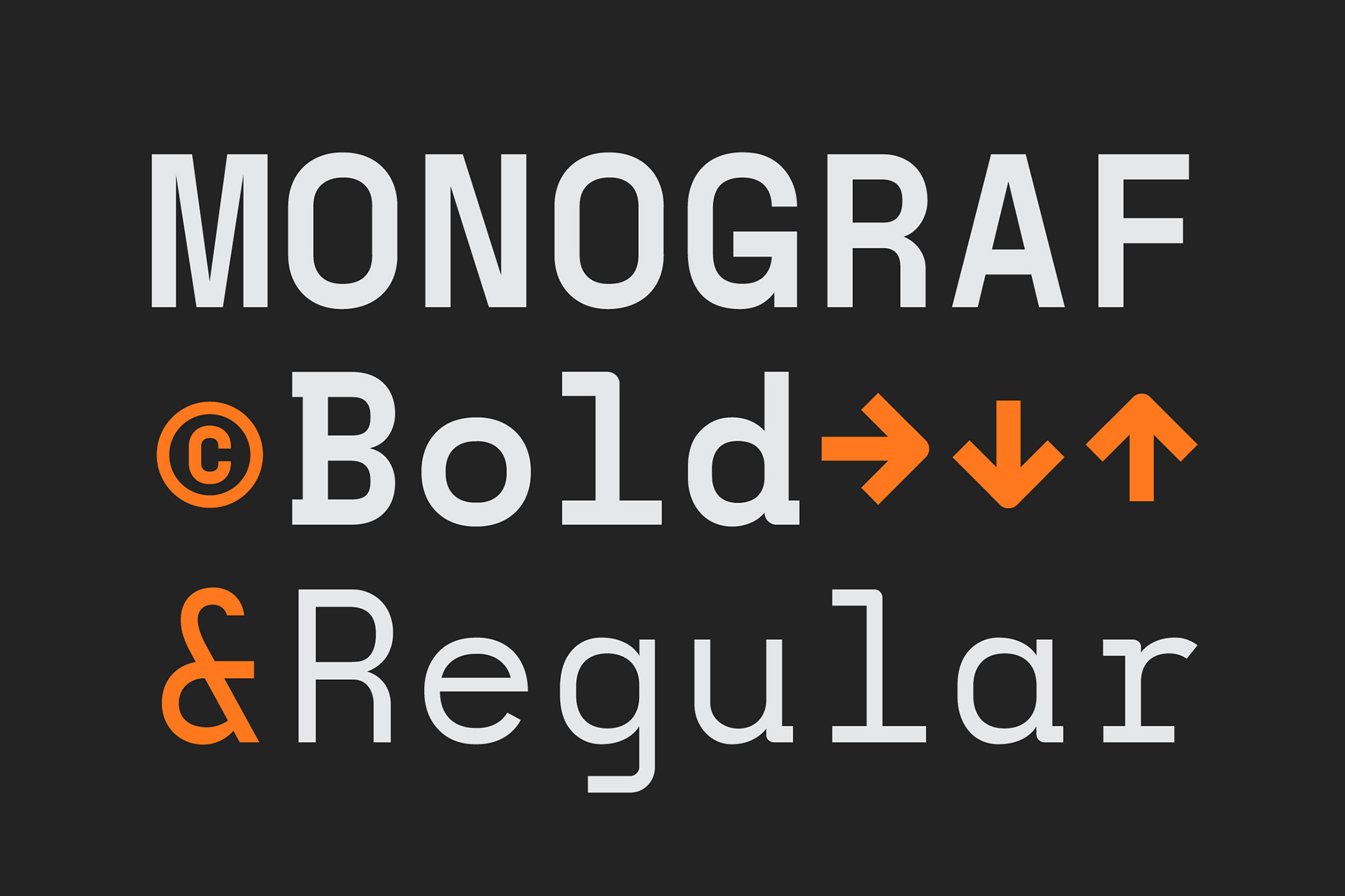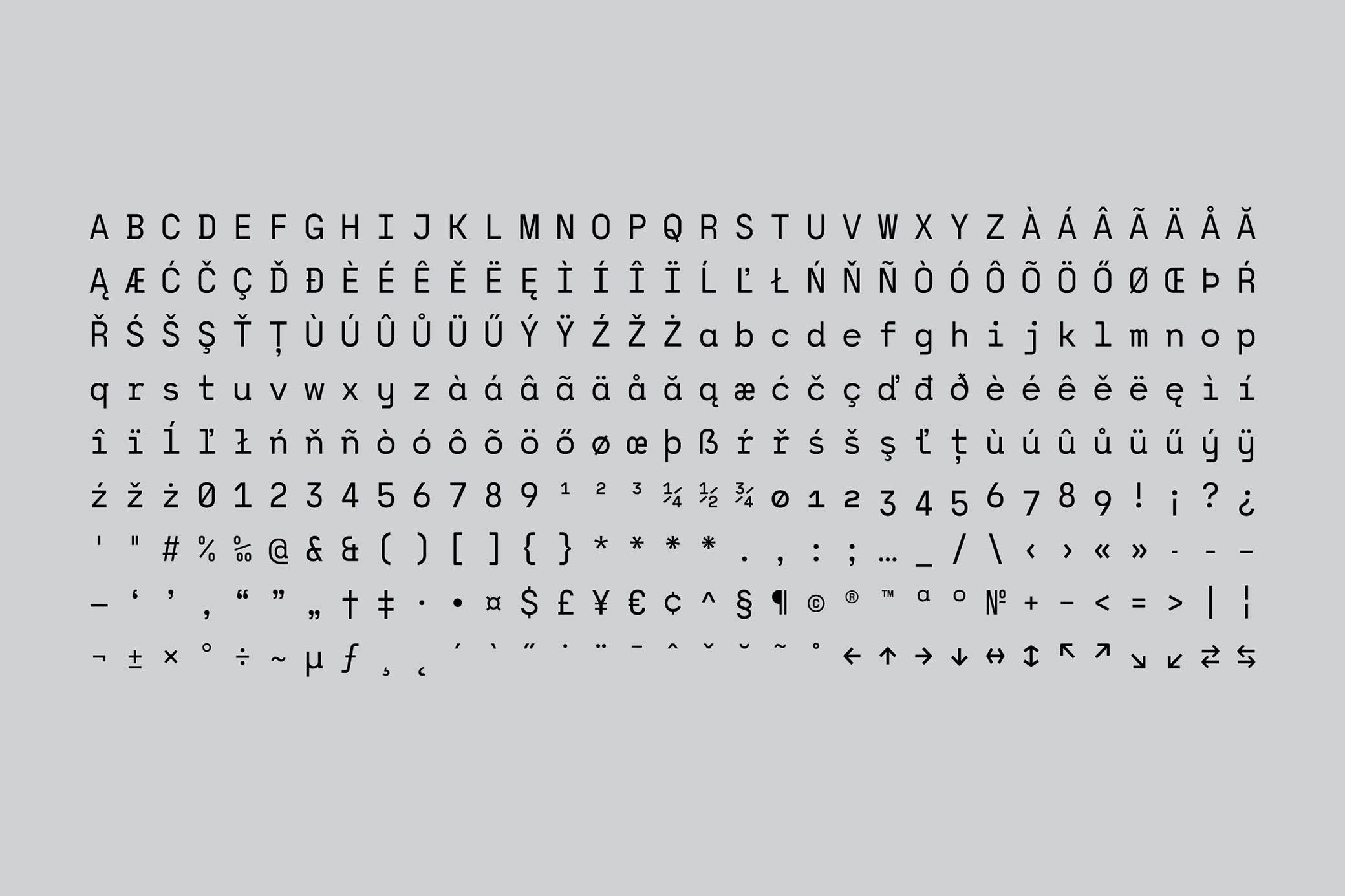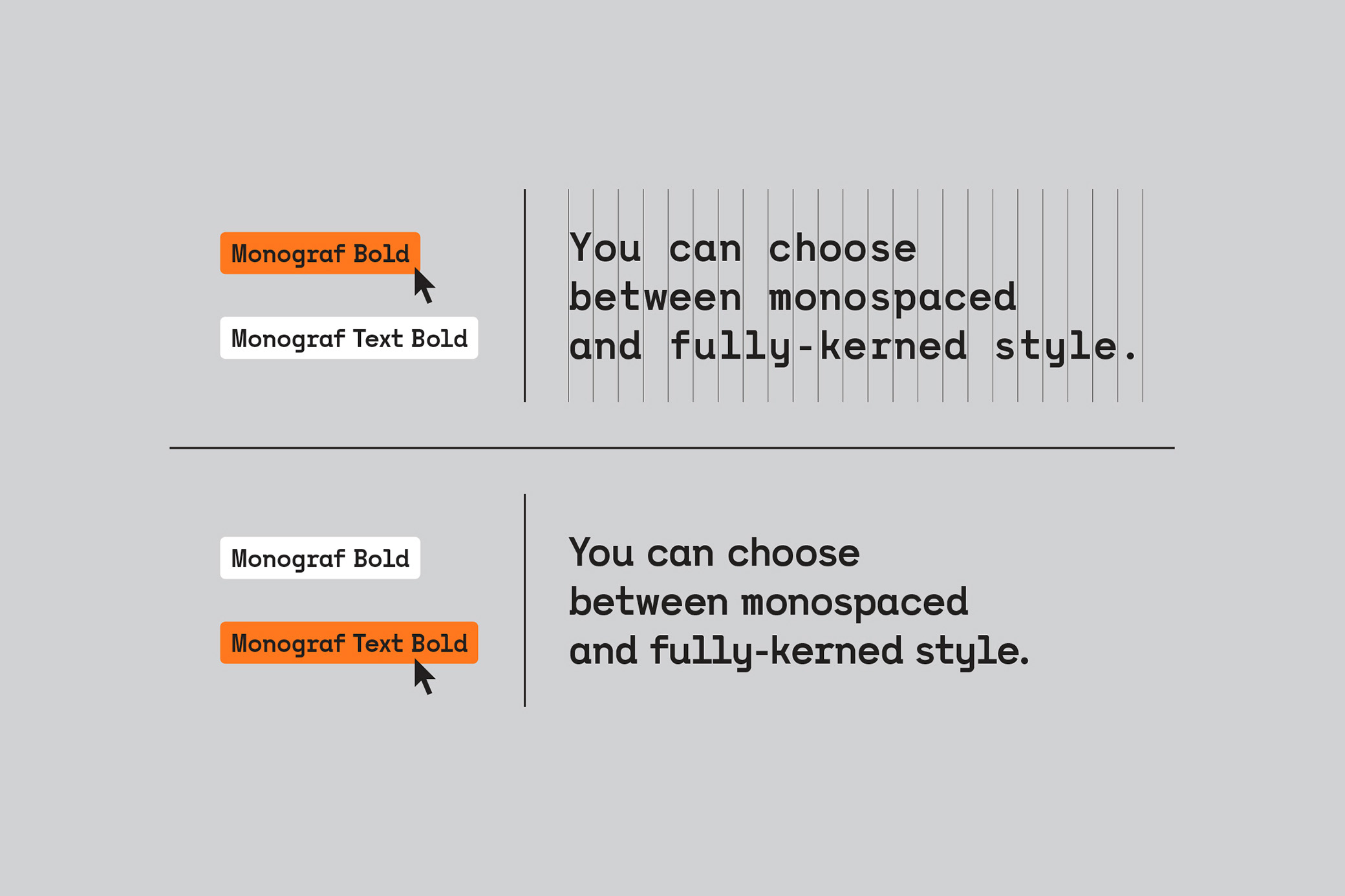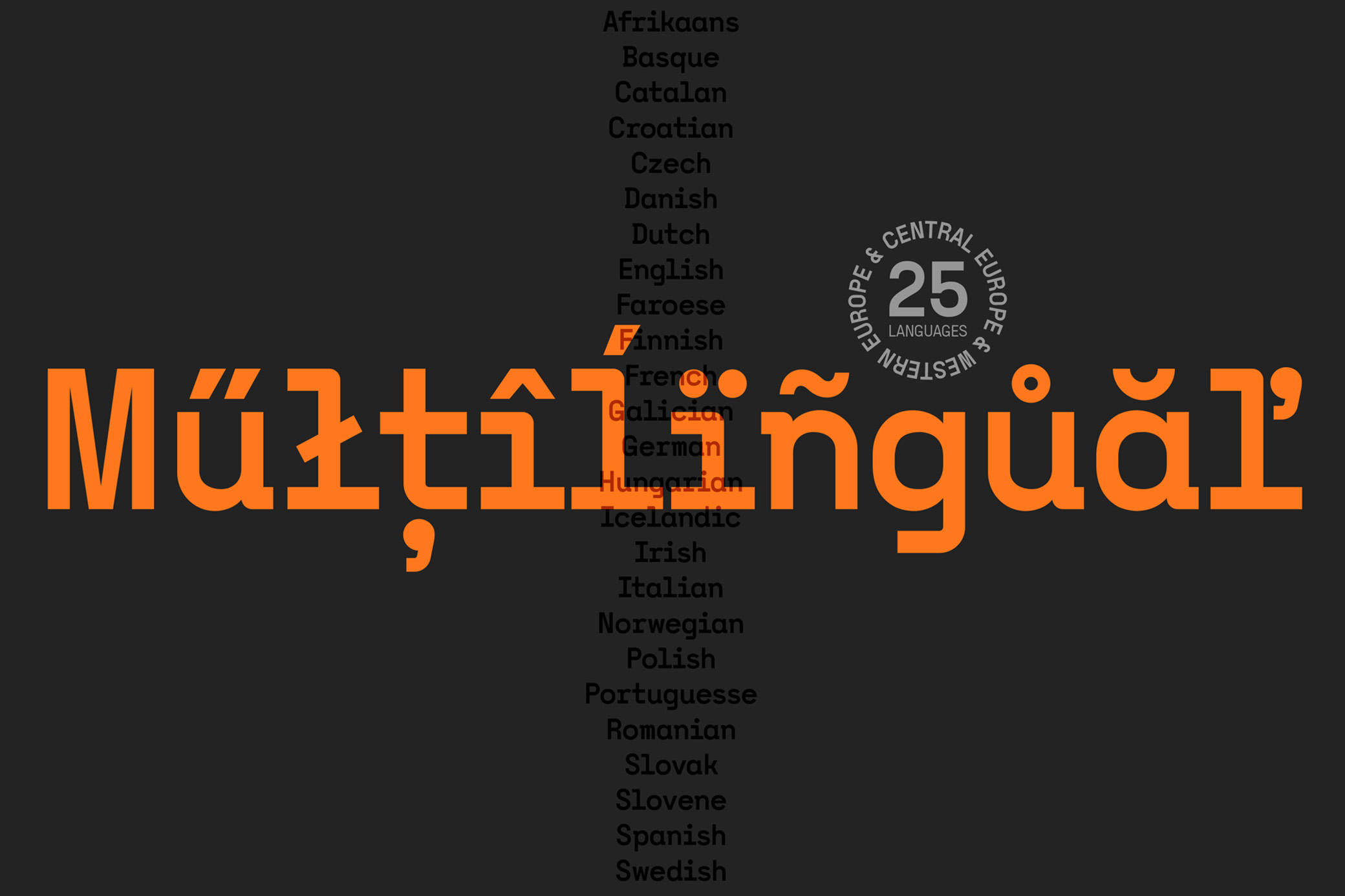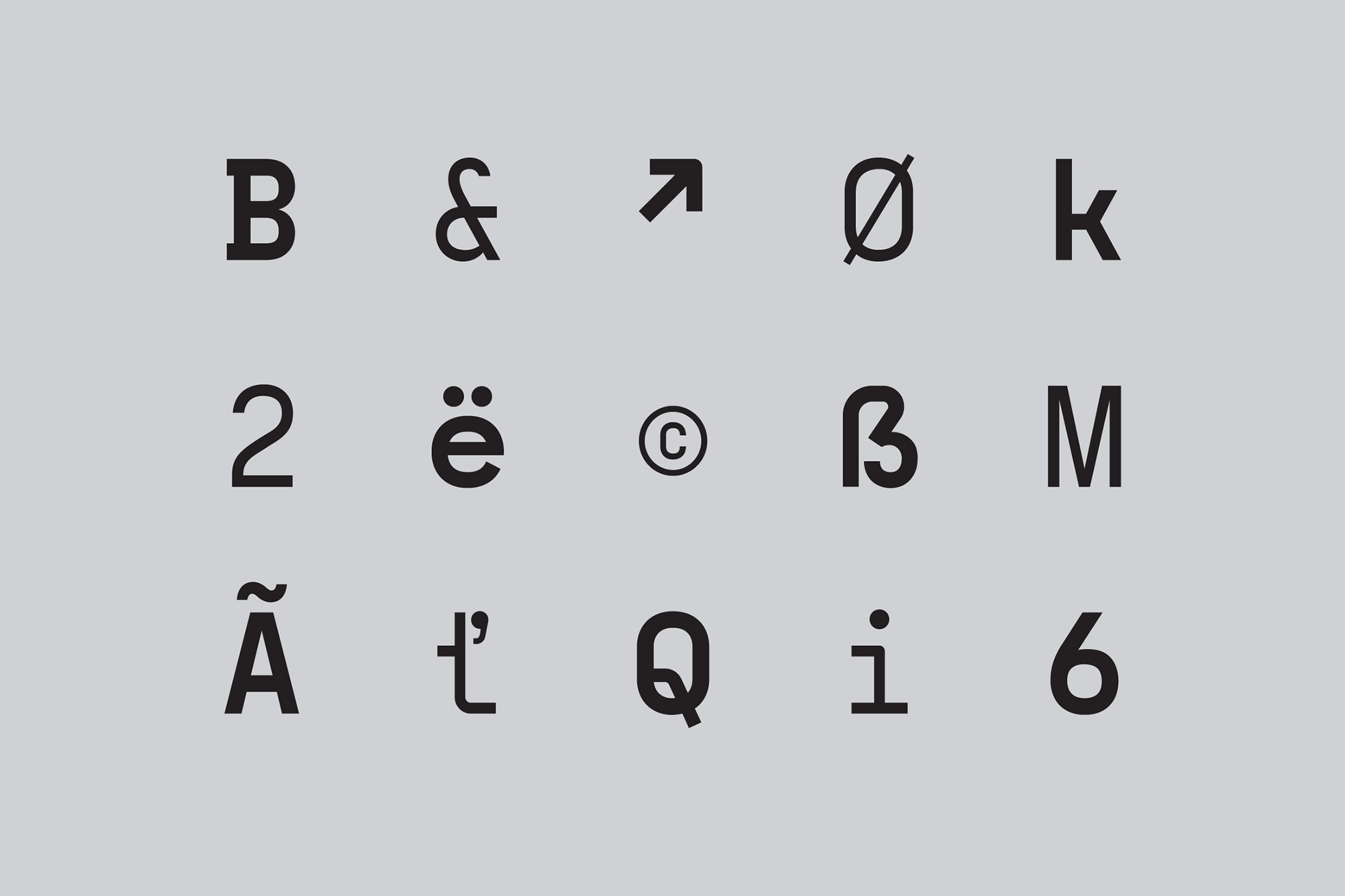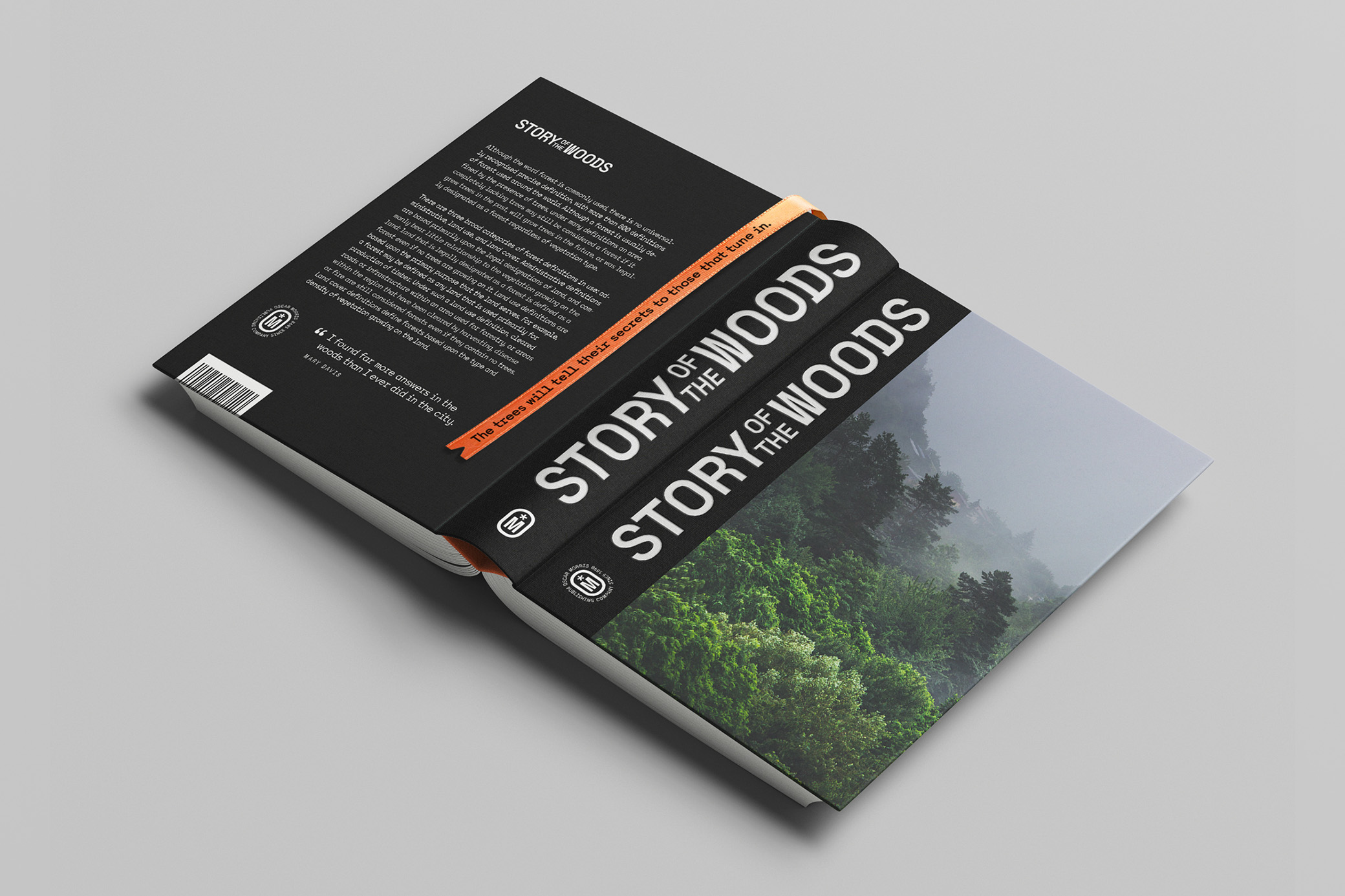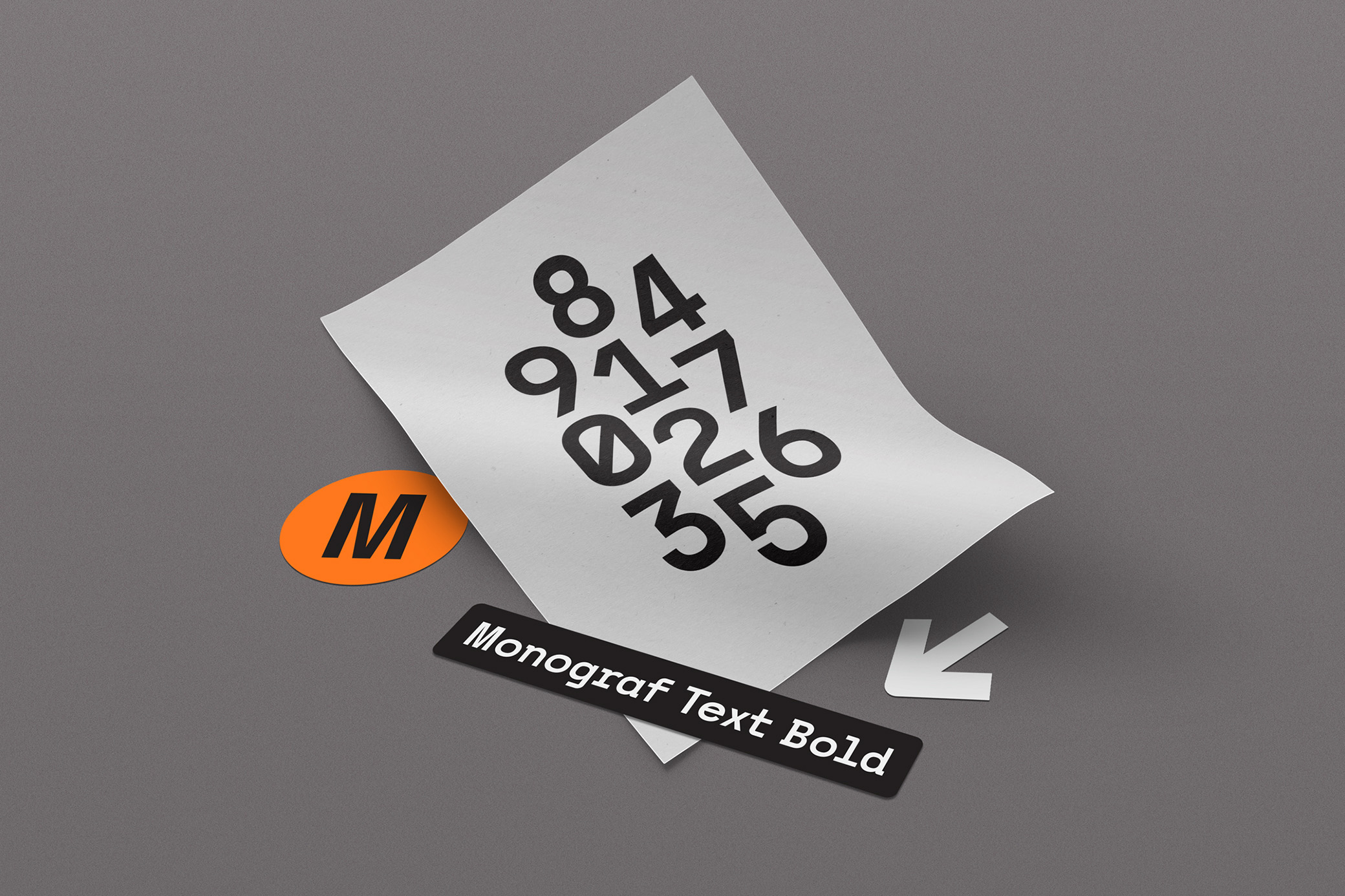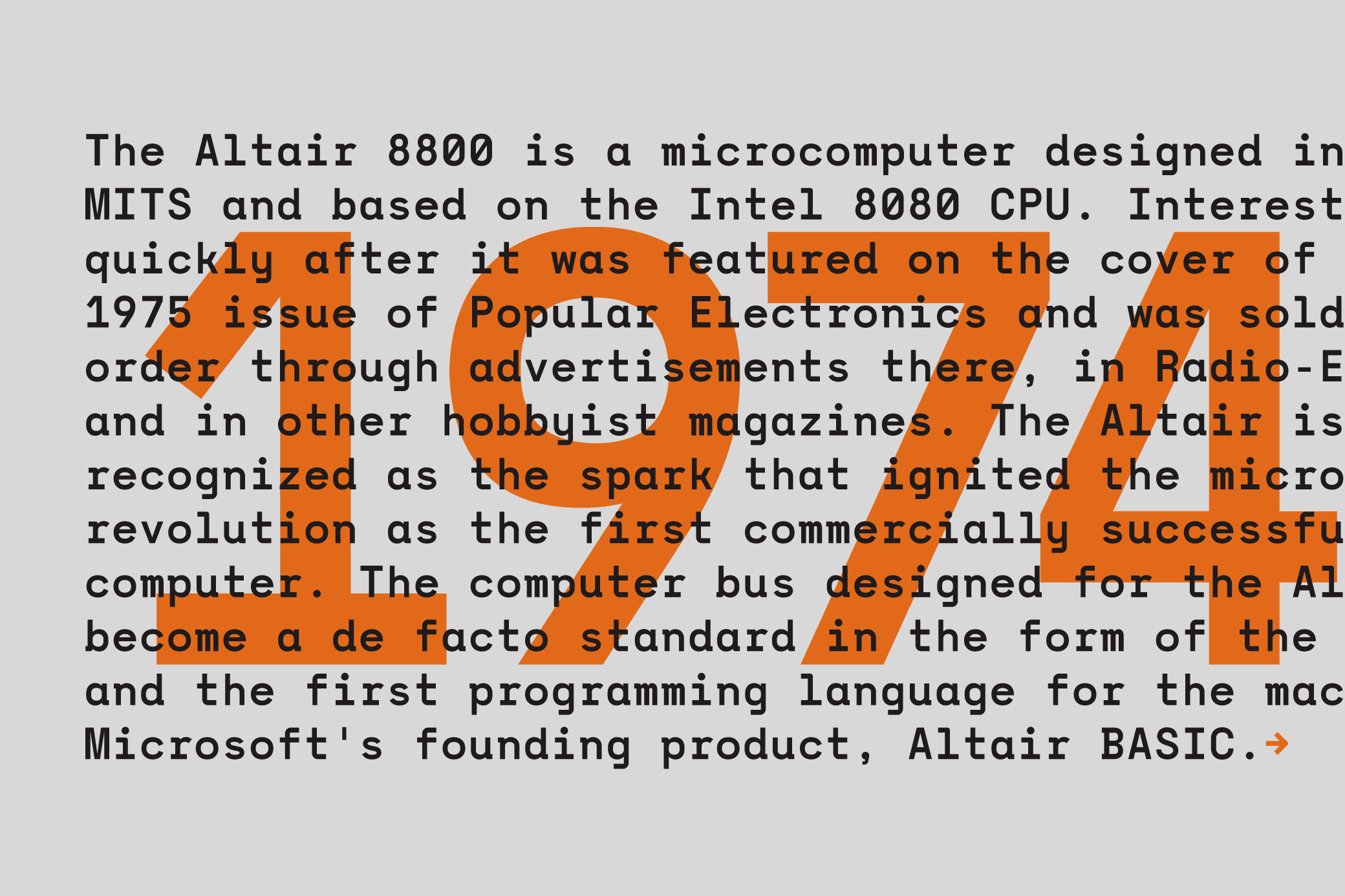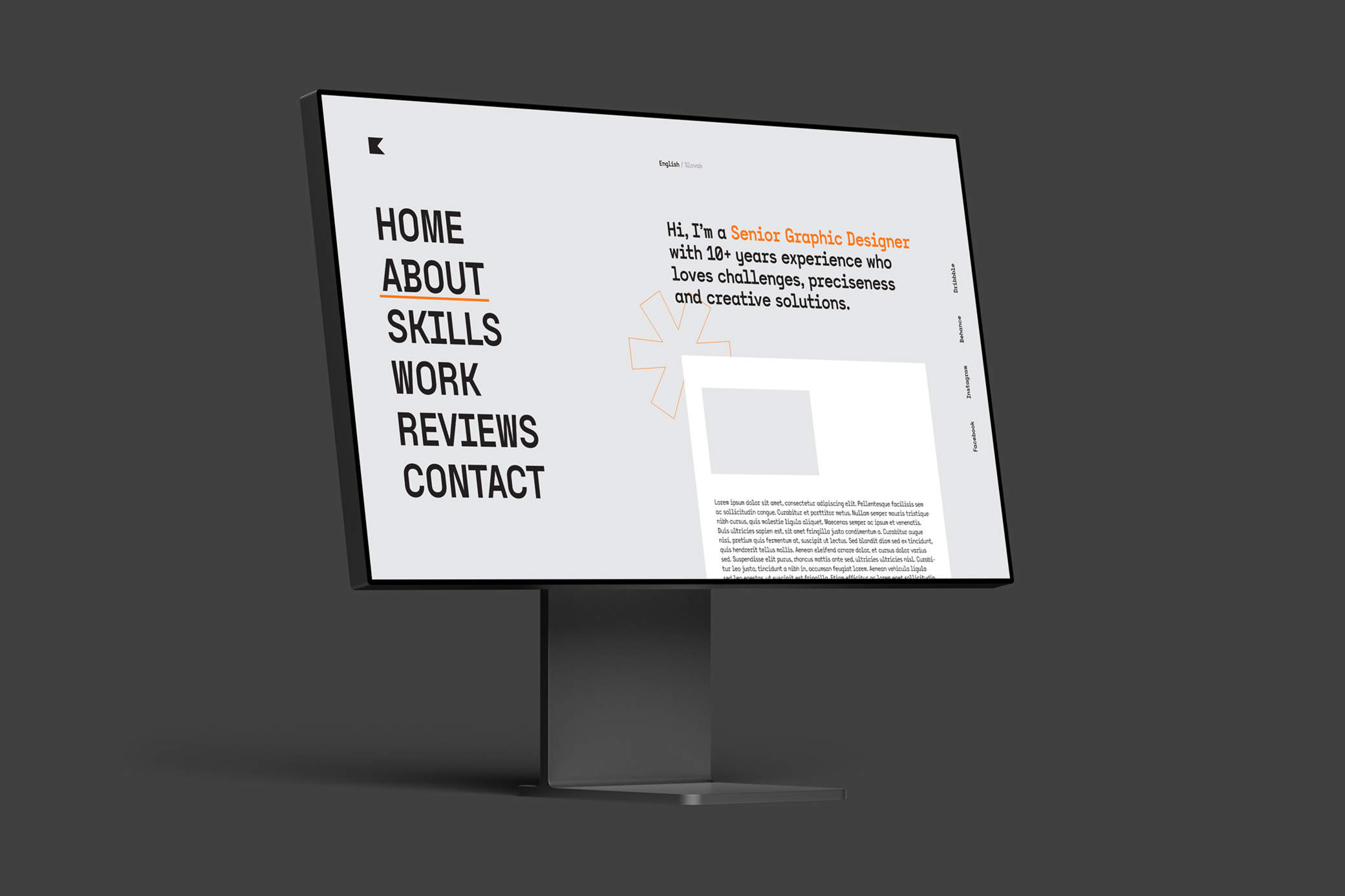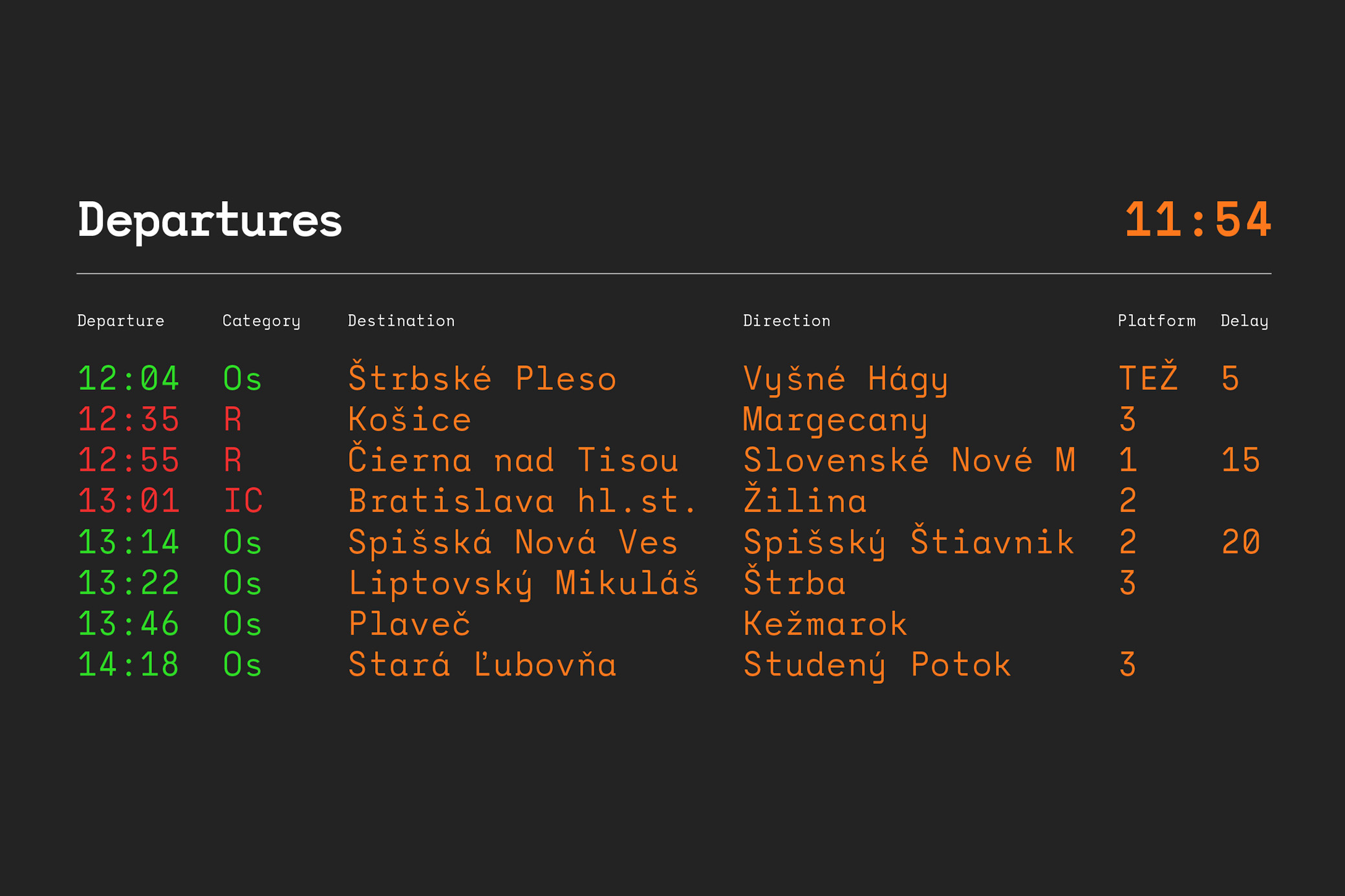
Monograf Sans Serif Family
This one draws from a type machine font, but wrapped into a clean European typographic tradition and geometric audacity. Meet the Monograf Family, a Swiss design legacy.Monograf Family includes 4 types: Monograf Regular, Monograf Bold, Monograf Text Regular, and Monograf Text Bold. The first two are the original fixed-width monospaced fonts. Monograf Text types are their derived style with proportional spacing and well-balanced kerning to make the text easier to read and look optically balanced. Consequently, Monograf suits tabular layouts, coding, web design, magazine covers, and logos. A complete character set is foreseen for each font, plus some extra features: old-style figures, directional arrows, and four types of asterisks.